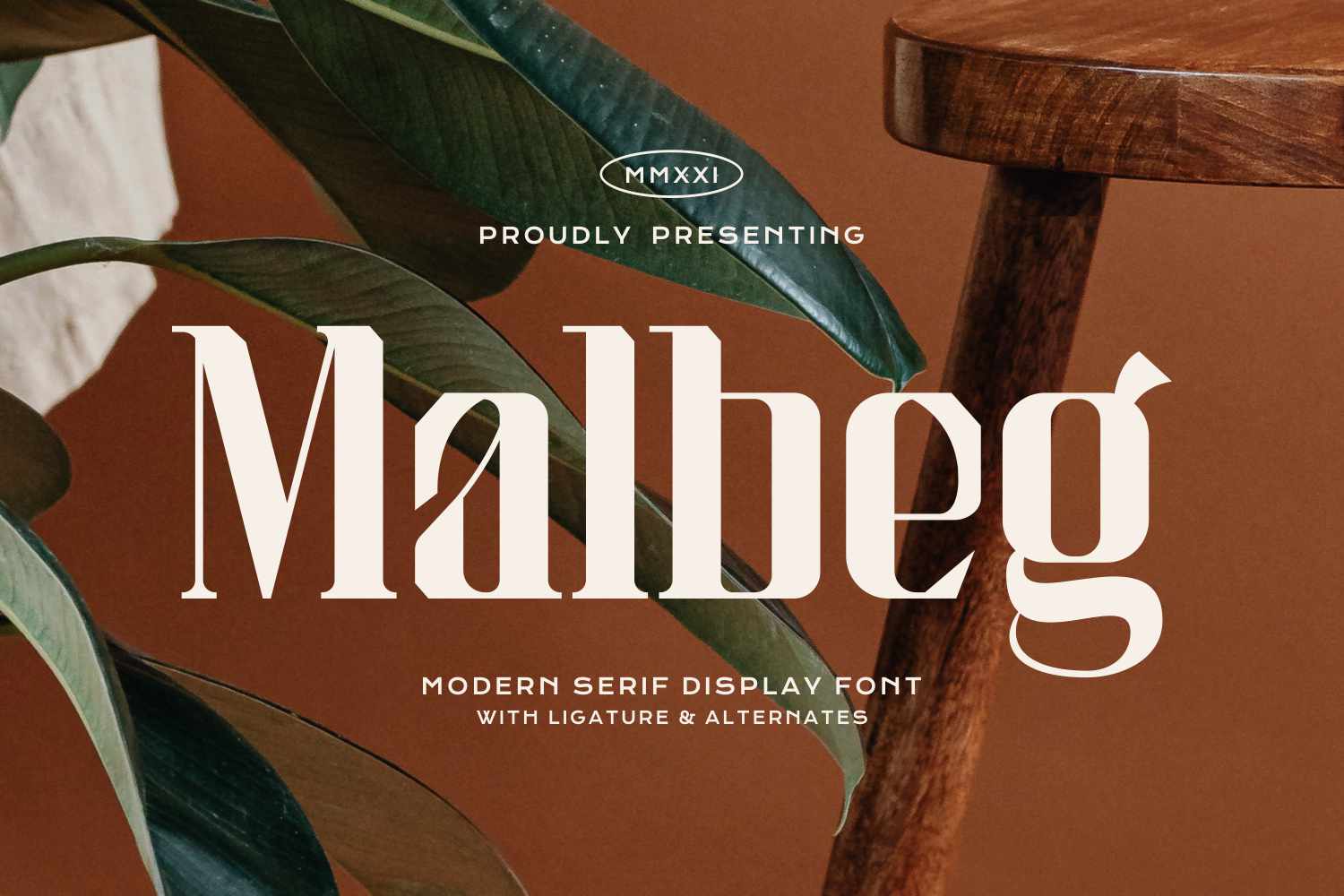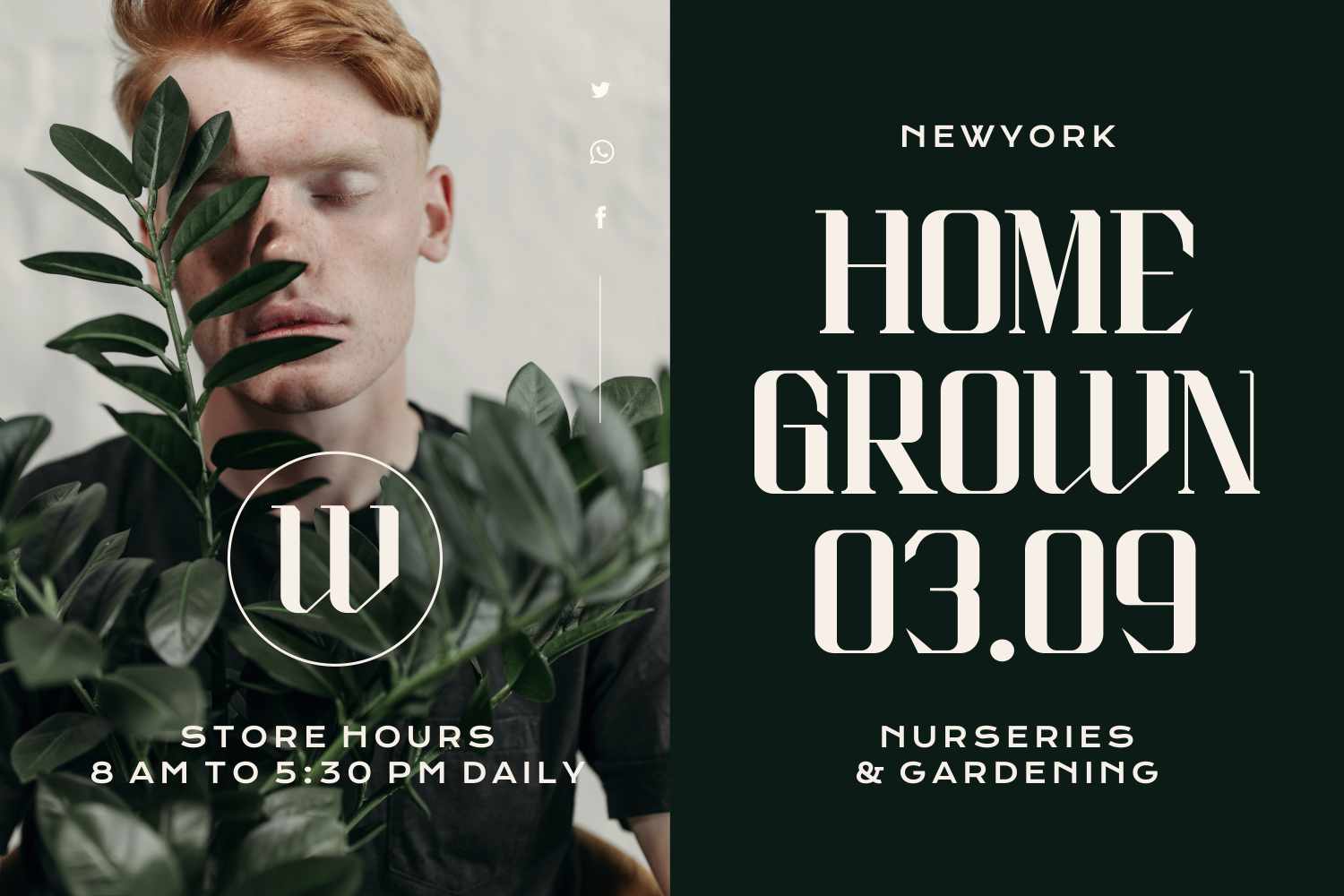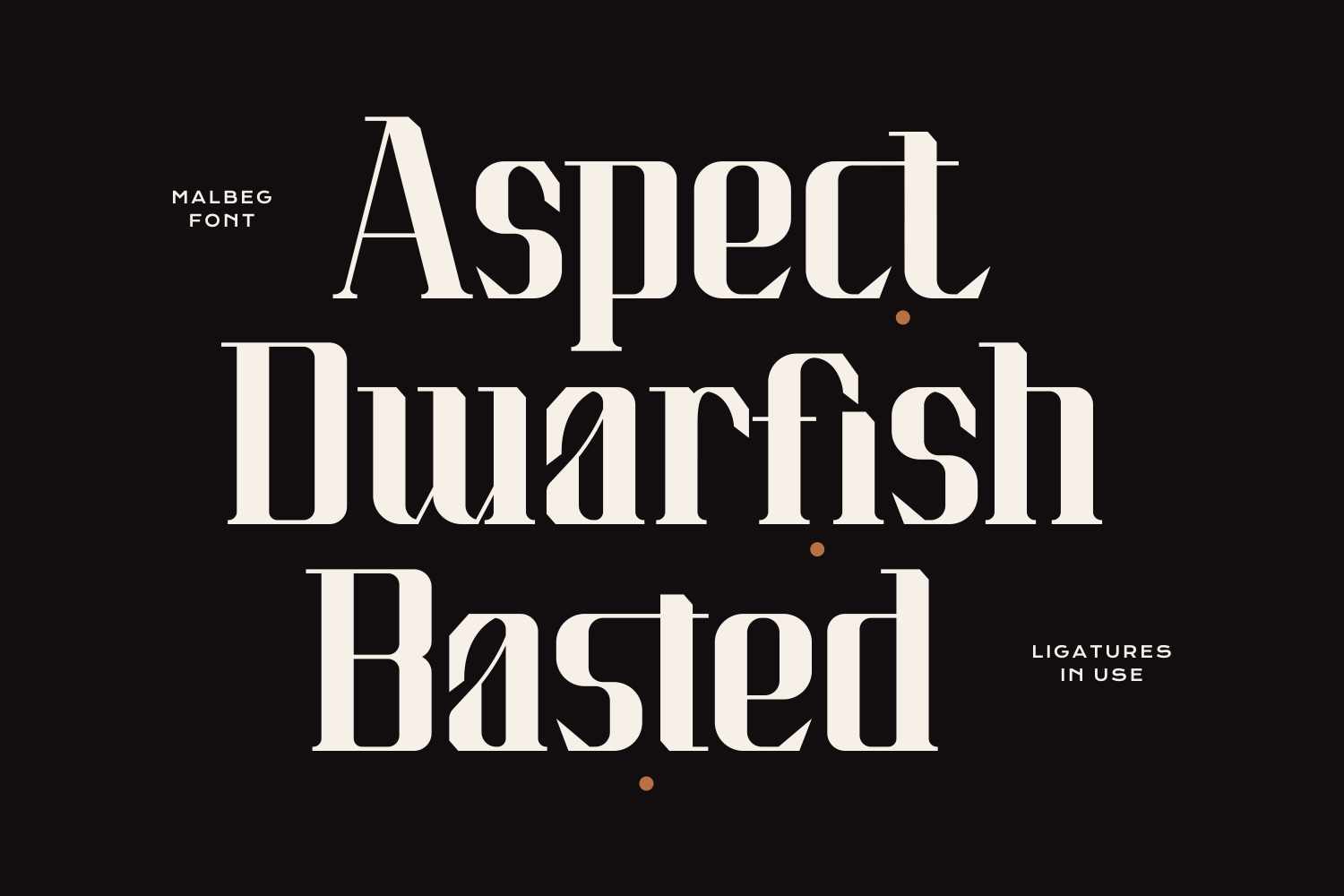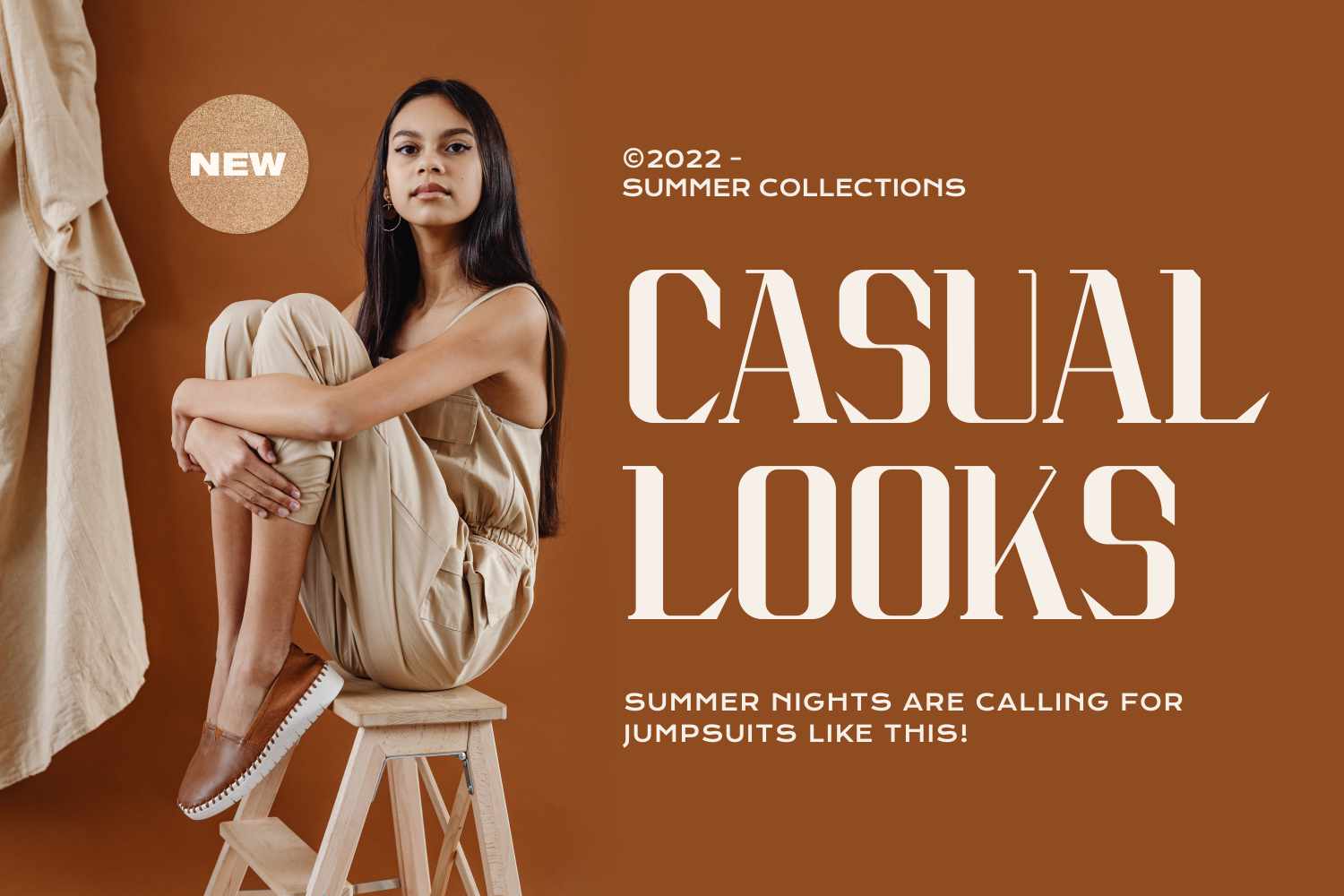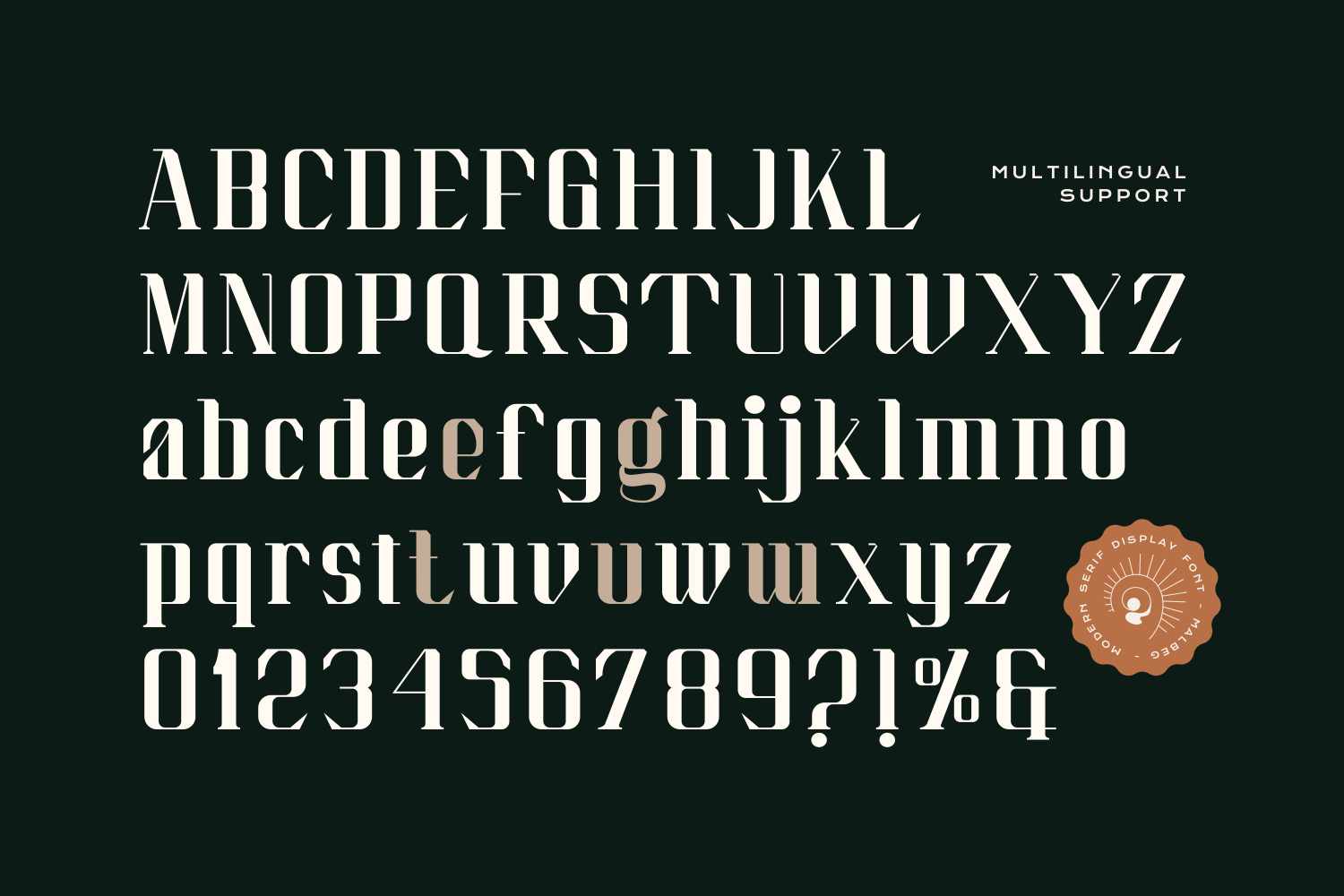
Malbeg
Malbeg is a refined serif display font that merges high contrast strokes with contemporary elegance. Its bold verticals and distinctive angular serifs exude sophistication, making it perfect for editorial headlines, branding, fashion campaigns, and modern packaging. With its stylish presence, Malbeg adds a touch of timeless luxury to any design it graces.
Featuring an array of ligatures and alternates, Malbeg allows for customized typography compositions that feel both classic and edgy. The font supports multilingual characters, ensuring its global versatility. Whether you’re designing a magazine spread, a boutique label, or a creative portfolio, Malbeg delivers style and substance with confident flair.